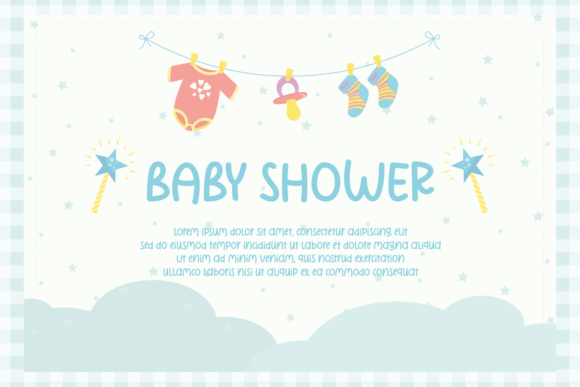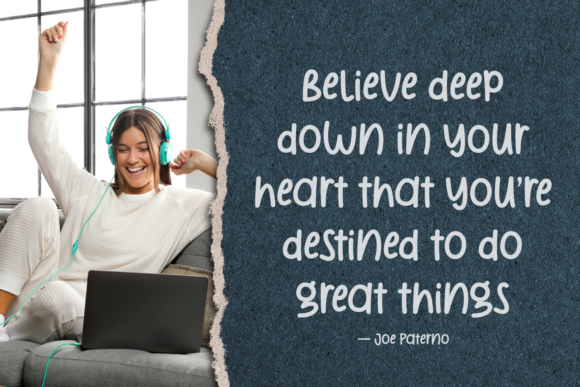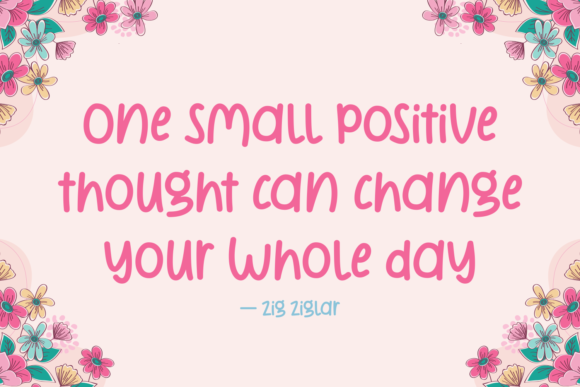
Getting Your Creative Groove On
Who else remembers the excitement of rummaging through their grandma’s craft box, overflowing with colorful markers, glitter, and stickers? The joy of creating something from scratch, with no limits or rules, is a feeling that never gets old. As designers, we’re always on the lookout for ways to tap into that same sense of playfulness and bring it to life in our work.
Enter Baggie Font, a charming, handwritten font that’s perfect for adding a touch of whimsy to any project. Designed with kids in mind, this font is ideal for school projects, activity sheets, and any other creative endeavor that requires a dash of personality. And let’s be honest, who wouldn’t want to add a little more fun to their design work?
For designers, Baggie Font is a valuable addition to any toolkit. Its unique, quirky style can add a touch of authenticity to any project, making it stand out from the crowd. Whether you’re working on a children’s book, a marketing campaign, or simply a fun project for yourself, Baggie Font is sure to bring a smile to your face and inspire your creativity.
Baggie Font Key Features
- Font Family: Baggie Font is a sans-serif font family.
- Font Size: The font family includes multiple weights, ranging from 100 to 900, allowing for precise size control.
- Unique Characteristics: Baggie Font features a unique, rounded sans-serif design with a friendly and approachable feel, making it suitable for various applications, including branding, advertising, and digital media.
- Resolution: Optimized for high-resolution displays, Baggie Font supports resolutions up to 300 DPI, ensuring crisp and clear text rendering.
- Character Set: The font family includes a comprehensive character set, supporting multiple languages and scripts, including Latin, Cyrillic, and Greek alphabets.
Baggie Font Review
Overall, I think Baggie Font has some great qualities, but it also has its limitations. Let’s start with the good stuff. ✨ I love how modern and playful the font looks. It’s perfect for a fun and trendy brand identity. The curves and rounded edges give it a friendly feel that’s hard to resist.
✨ Another thing that works well is the versatility of Baggie Font. It comes in multiple weights, from light to bold, which makes it easy to use in different contexts. Whether you need a subtle headline or a bold title, Baggie Font has got you covered.
- ⚠️ The font may not be suitable for formal or professional branding, as it can come across as too playful or childish.
- ⚠️ Some characters, like the lowercase “a” and “e”, can be quite ornate, which may not be ideal for small text sizes or tight spacing.
- ⚠️ Baggie Font may not be as legible in certain font sizes or resolutions, so it’s essential to test it thoroughly before using it for large-scale projects.
Overall, I think Baggie Font is a great choice for creative projects, like branding, packaging, or digital products. Just be aware of its limitations and use it wisely. With a bit of caution and planning, Baggie Font can add a fun and modern touch to your designs.
Baggie Font is commonly used in graphic design, digital art, and typography projects. It can be used to create eye-catching headings, titles, and text overlays in a variety of designs, from posters and flyers to social media graphics and web pages.